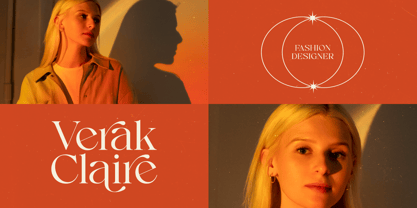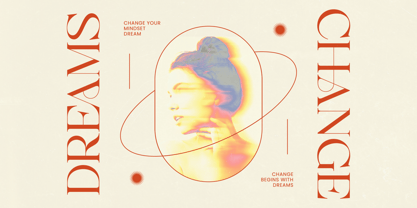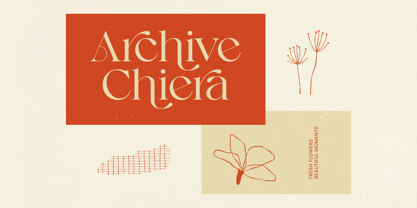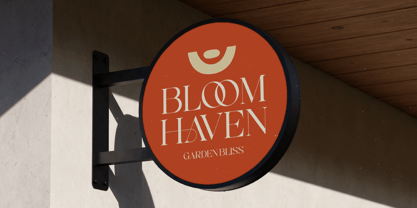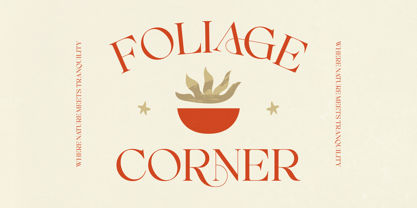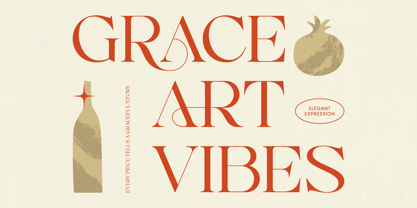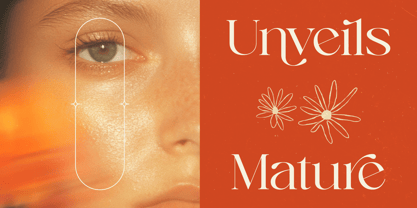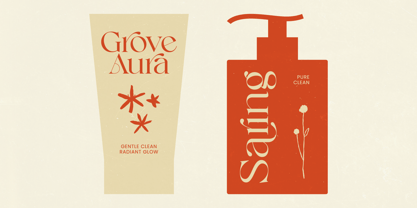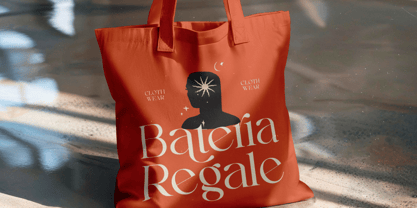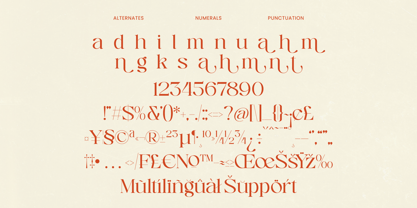
Enikra
Die Schriftfamilie Enikra wurde von Heru Utama Putra entworfen und von Timelesstype Studio veröffentlicht. Enikra enthält 2 Stile und Familienpaketoptionen. Mehr über diese Familie
Enikra is a refined thin-serif display font built for high-end branding, editorial layouts, luxury packaging, and artistic visual identities. Its slim strokes, sculpted serifs, and elegant ligatures give every word a polished, graceful presence. With 49 ligatures and 20 alternates, Enikra offers endless styling options-perfect for designers crafting timeless logos, boutique labels, magazine covers, and premium creative work that needs sophistication without losing modern flair.